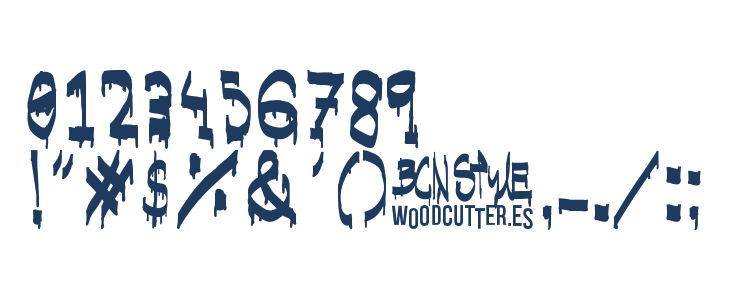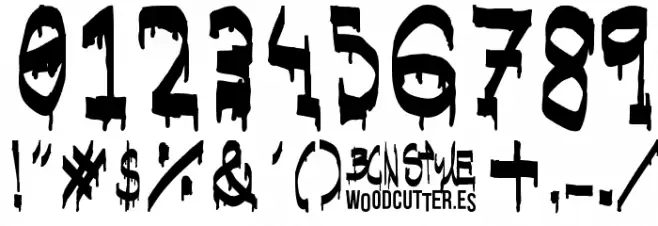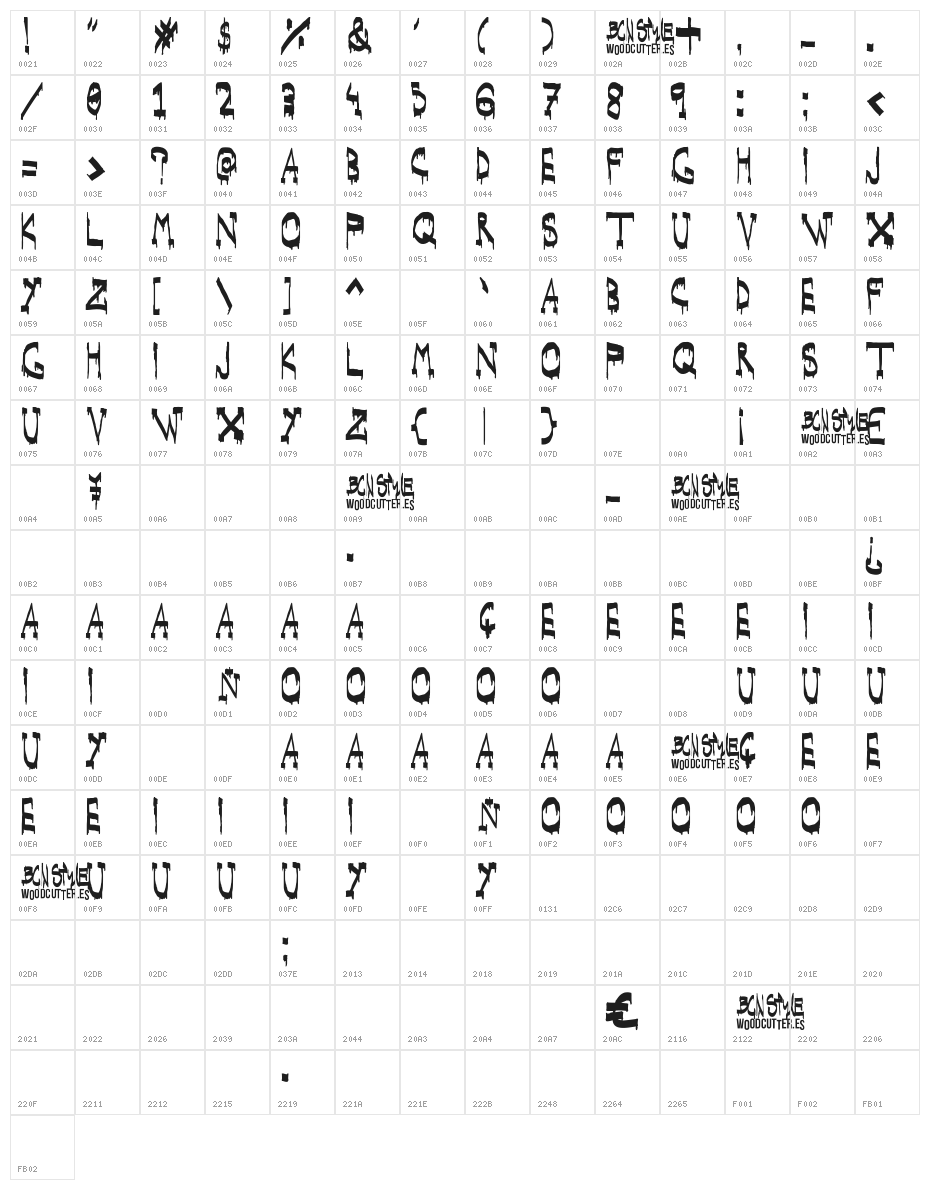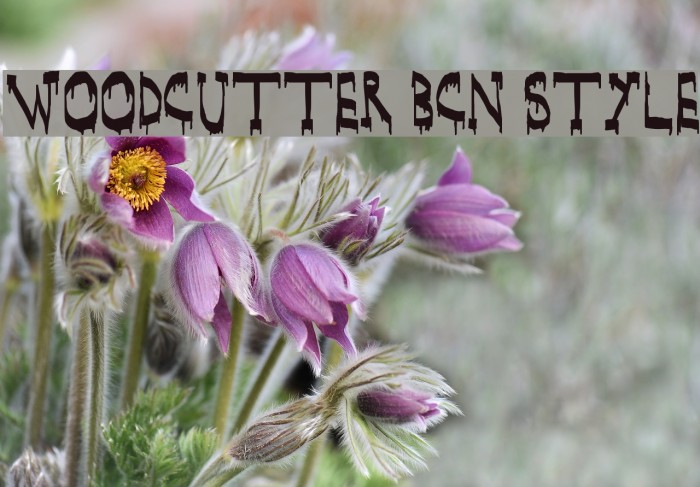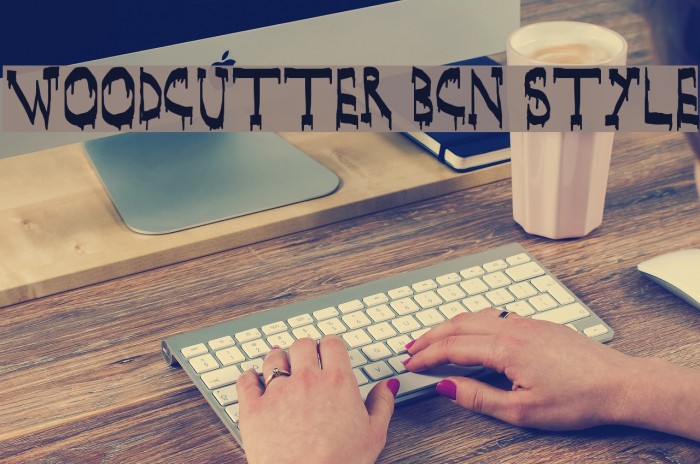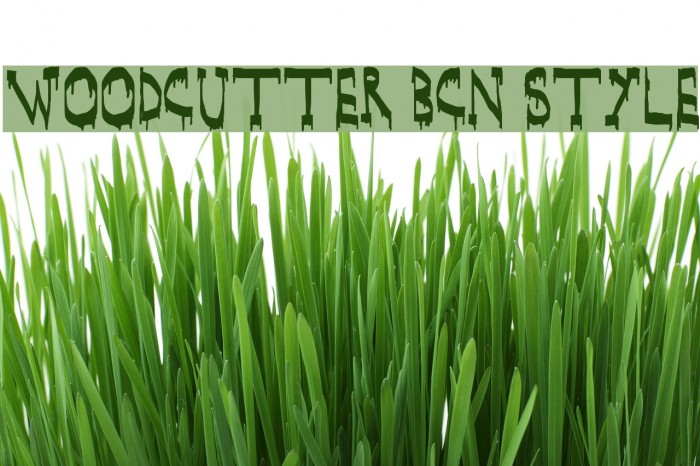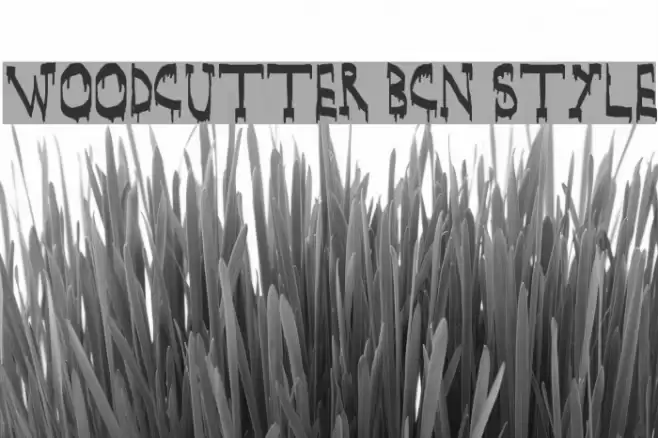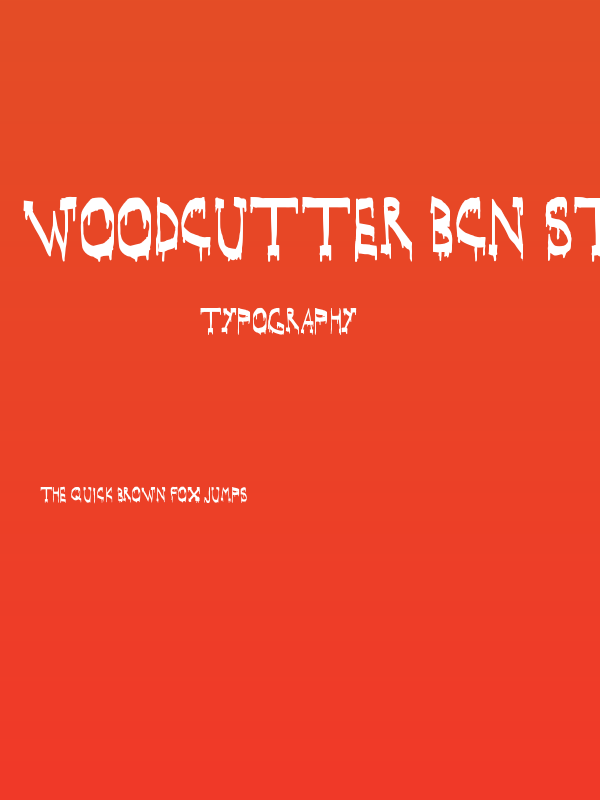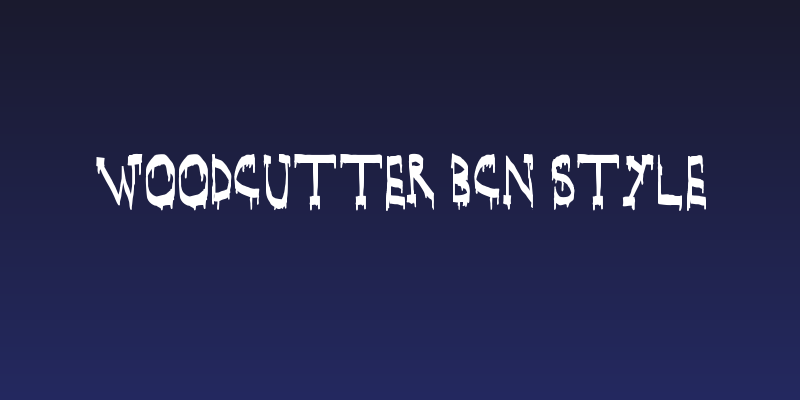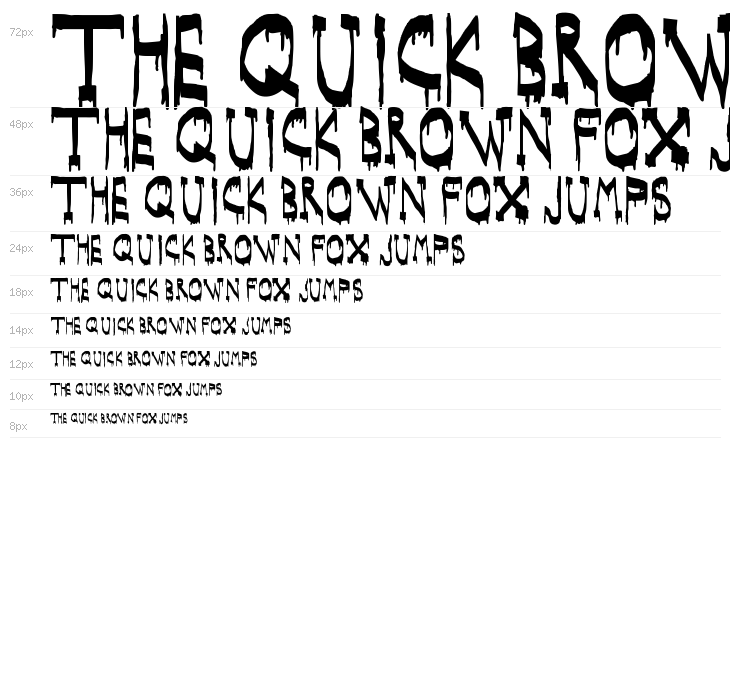
WOODCUTTER BCN Style Font
WOODCUTTER BCN Style Description
This font features a bold, dripping style that evokes a sense of horror or grunge. The characters are irregular and uneven, with a hand-drawn appearance that adds to its eerie aesthetic. The uppercase and lowercase letters maintain a consistent theme, with jagged edges and a sense of movement, as if the letters are melting or bleeding. The numbers and special characters follow the same design, ensuring a cohesive look across all glyphs. This font is ideal for projects that require a dramatic and eye-catching typeface.
| Use Case | Headlines, Posters, Logos |
| Proposed Projects | Ideal for Halloween-themed designs, horror movie posters, edgy album covers, or any project needing a dramatic, eye-catching typeface. |